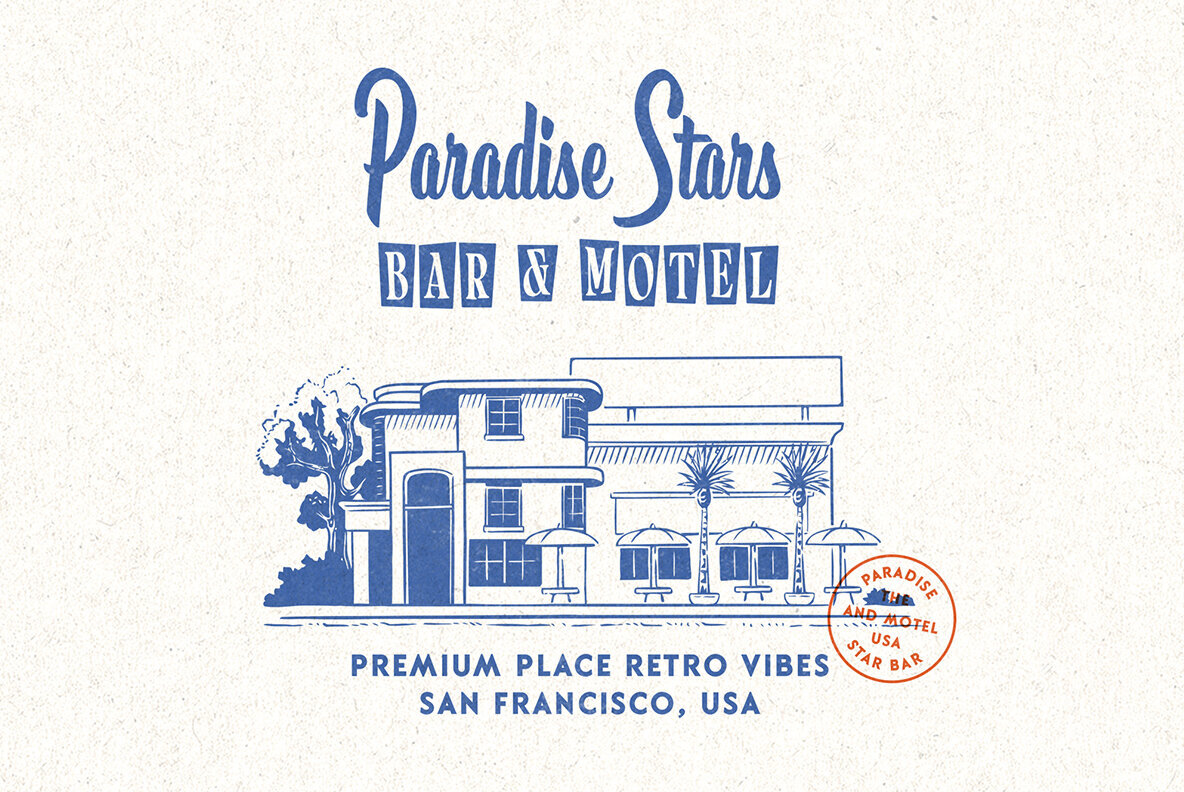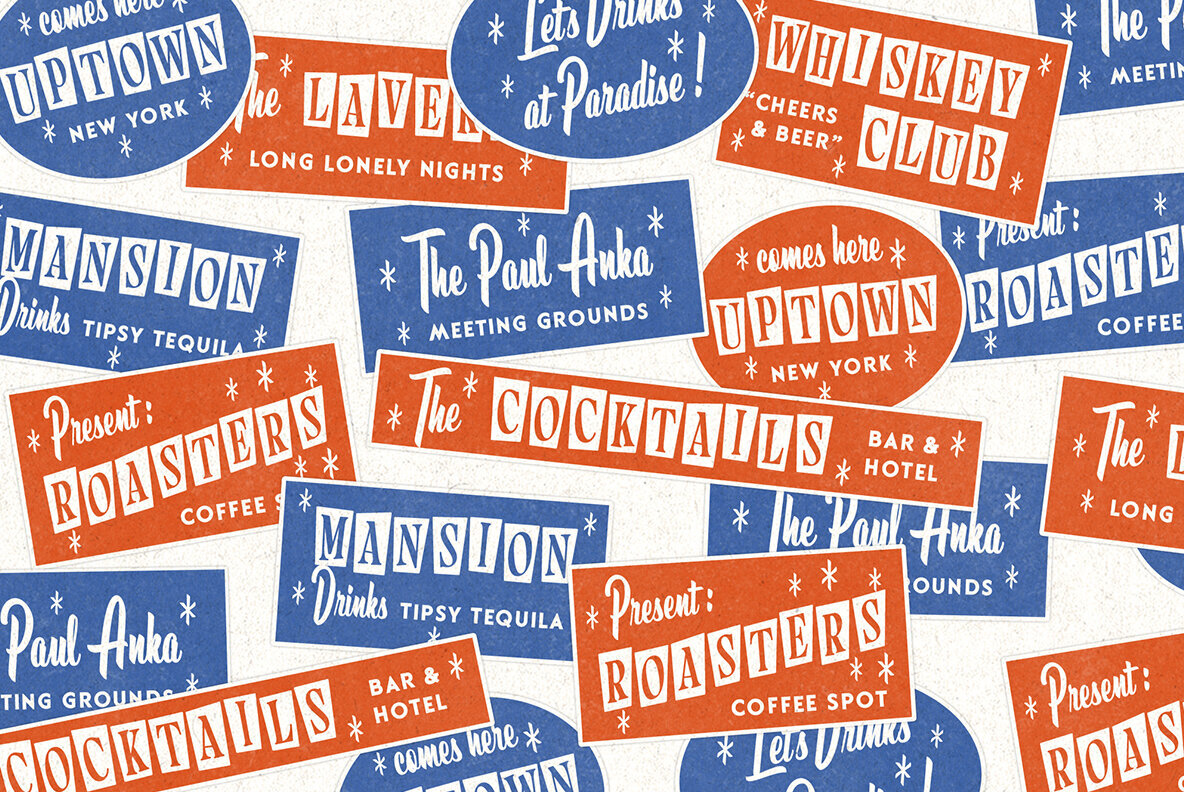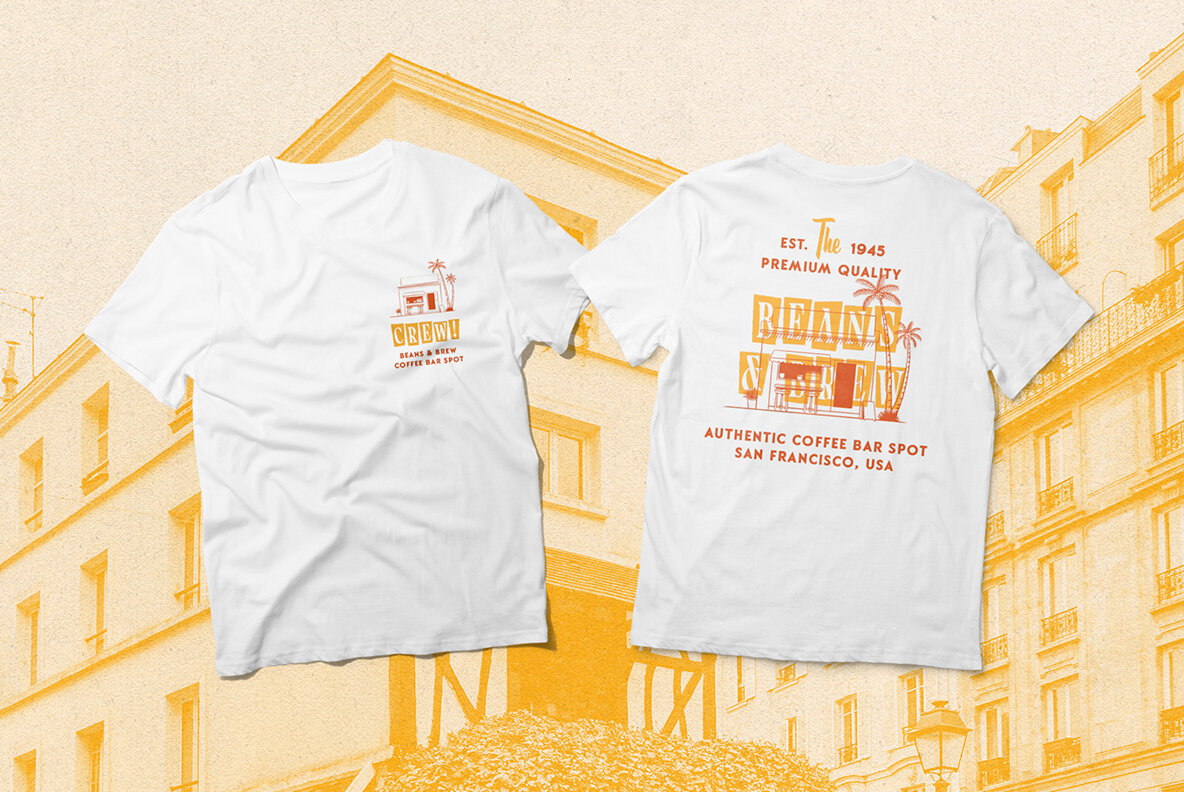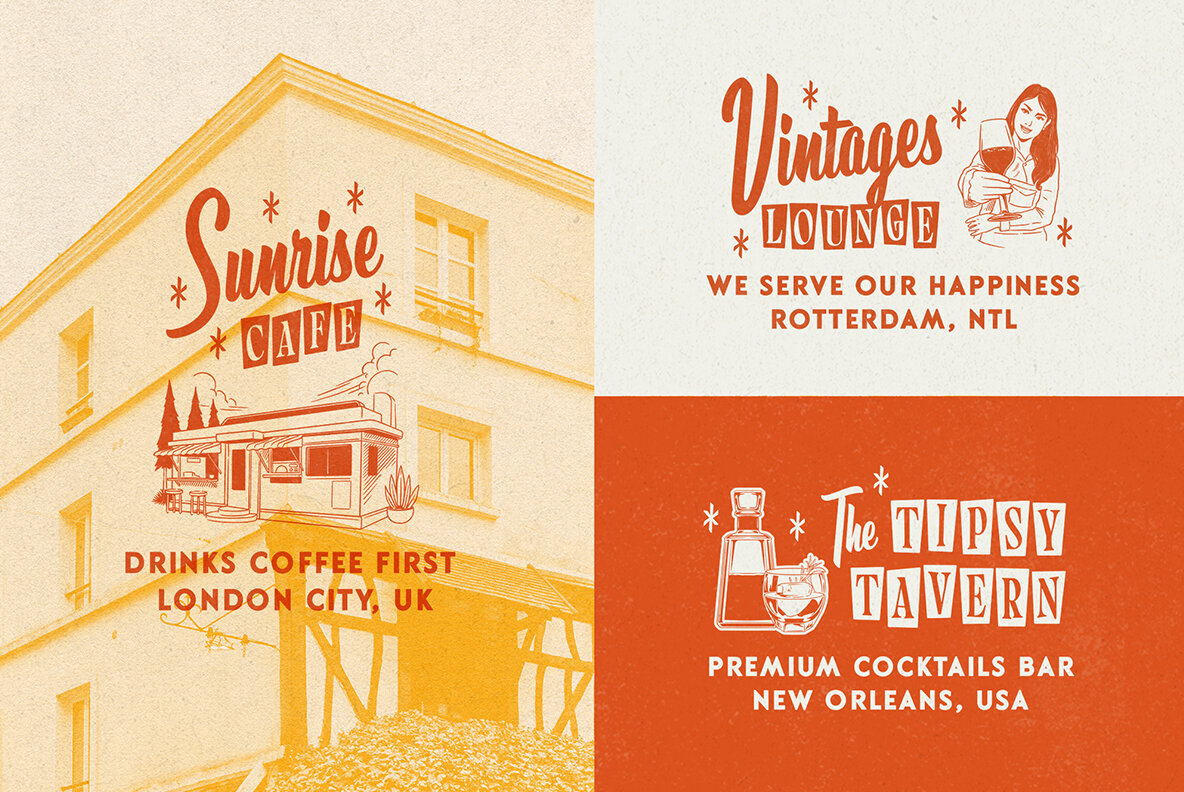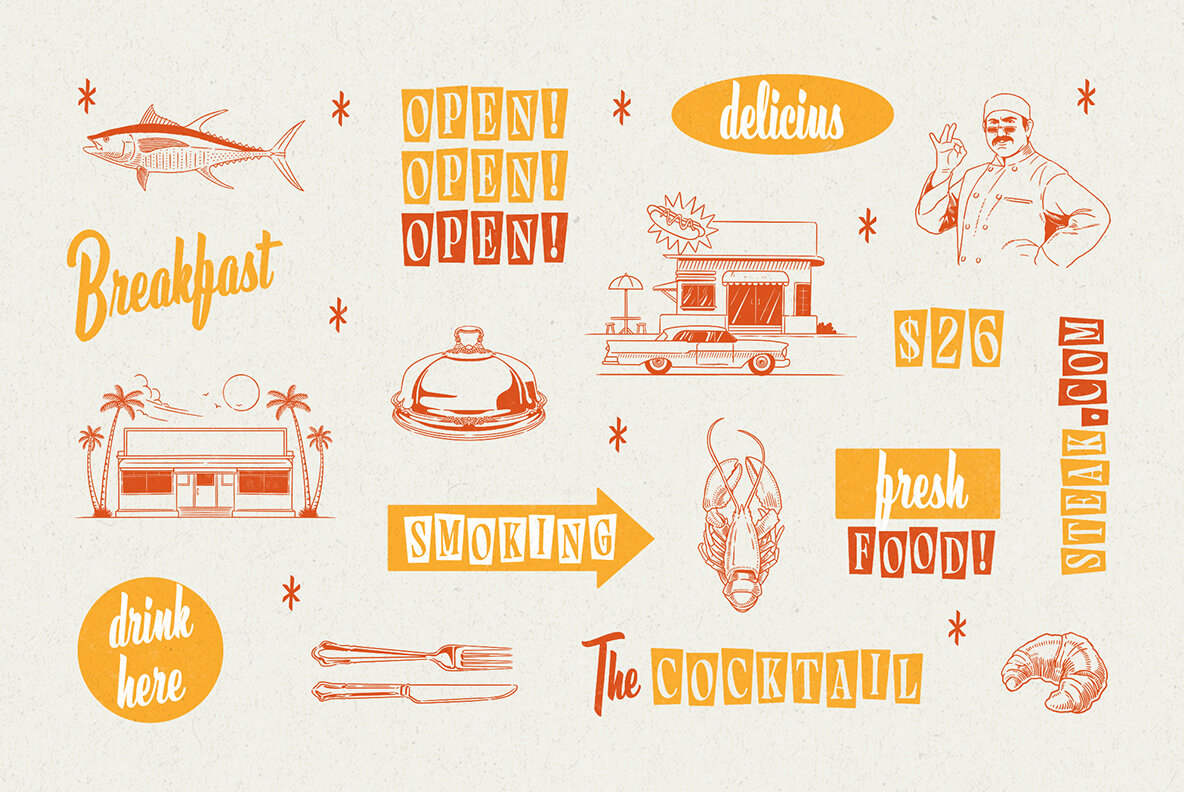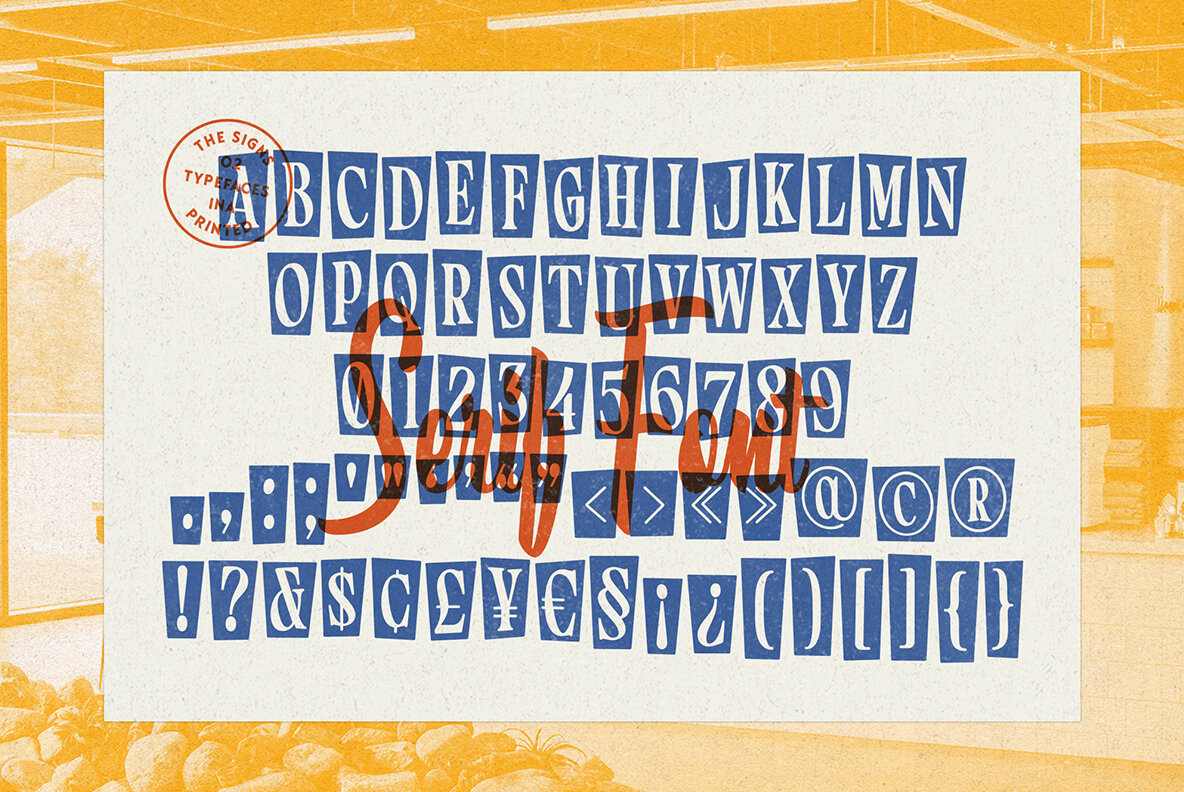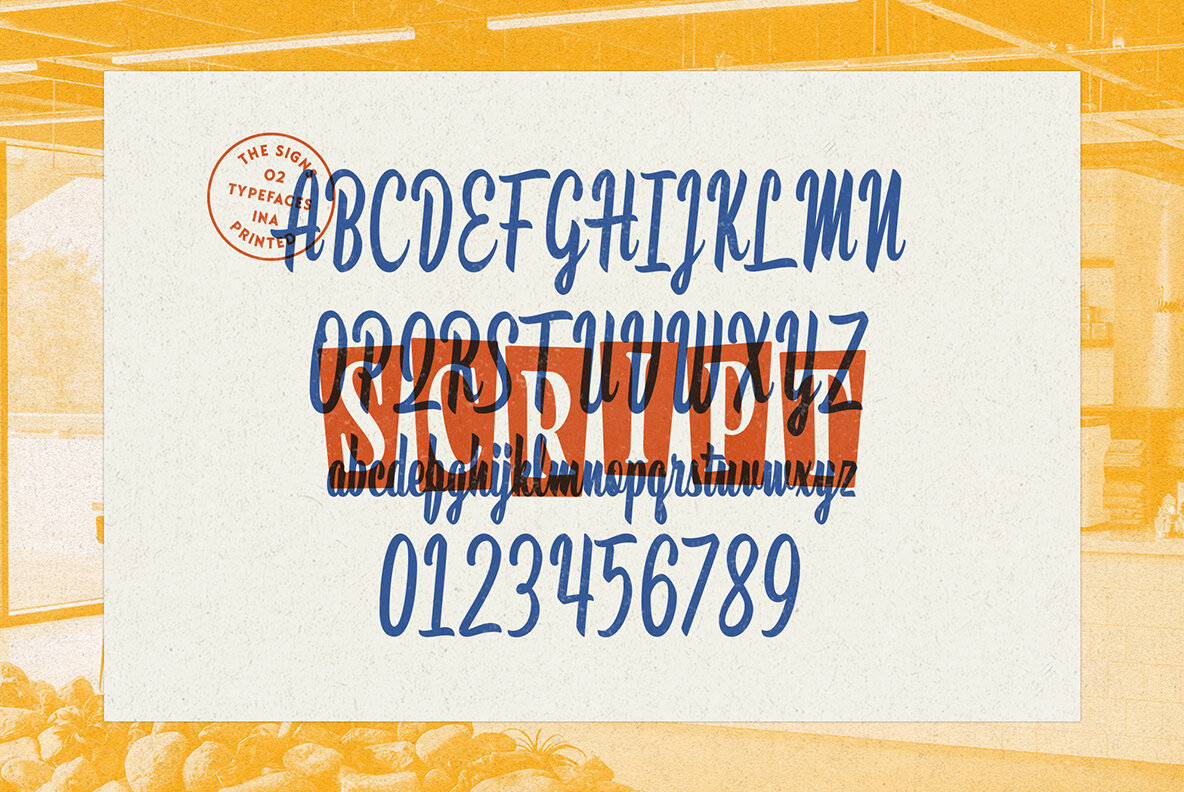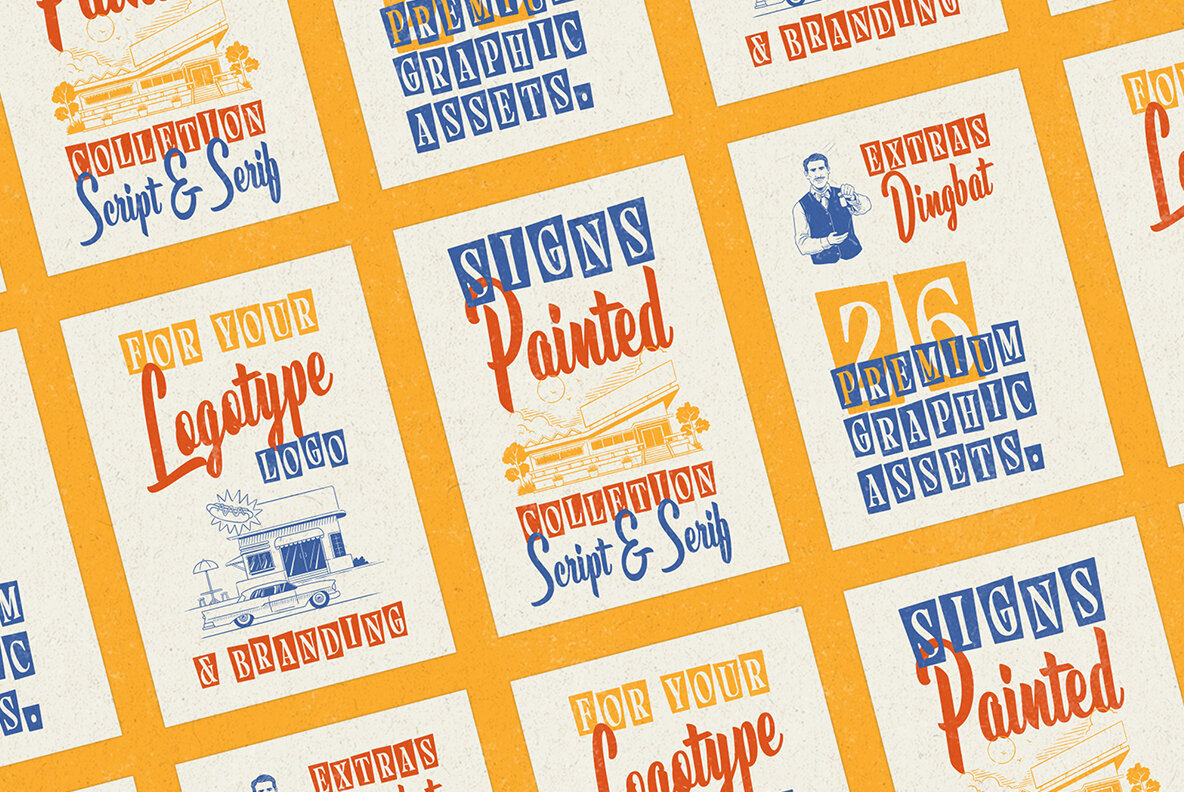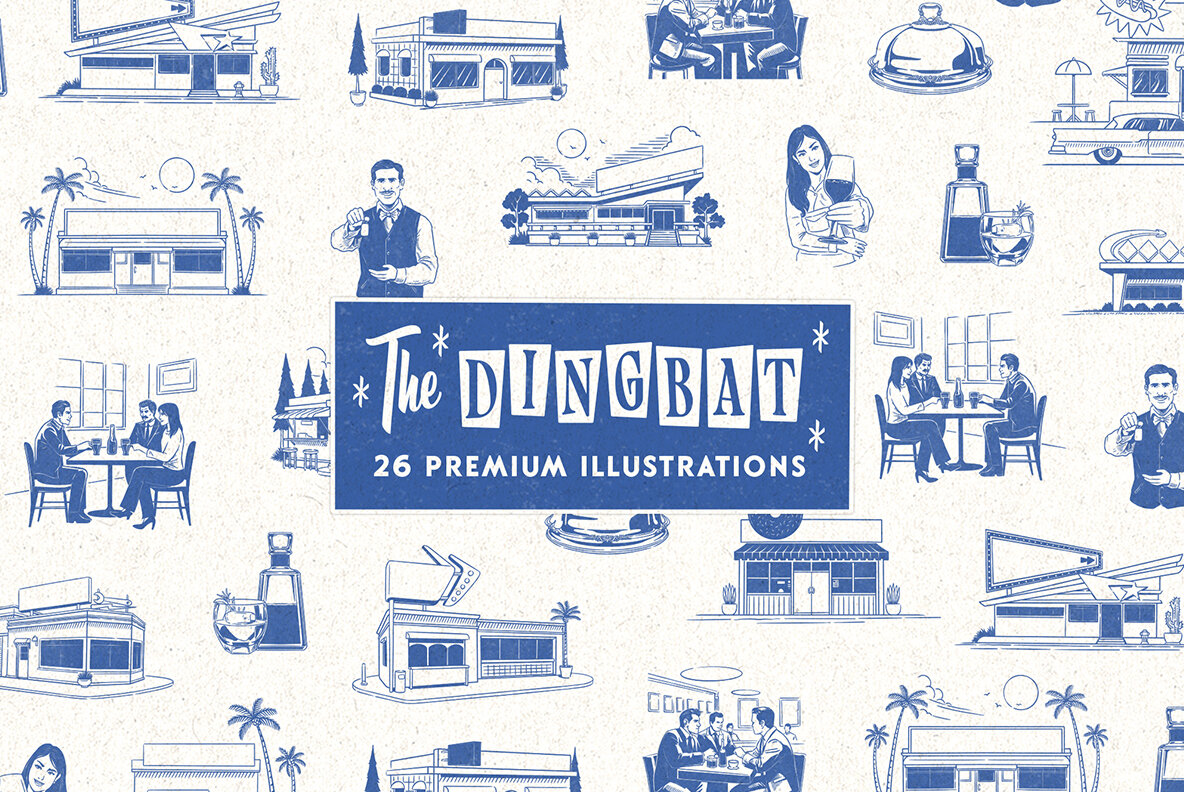
Signs Painted Font
Signs Painted Dingbat
Signs Painted Script
Signs Painted Serif
Embrace the timeless charm of "Signs Painted," a delightful pairing of script and serif fonts that exude a vintage allure. Perfect for logo design, posters, and branding, this font collection seamlessly blends classic elegance with modern flair. Each character is meticulously handcrafted, giving your creations a nostalgic touch that transports audiences to a bygone era. Enhancing its appeal, "Signs Painted" includes 26 illustrations inspired by the enchanting themes of restaurants and hotels, completing the vintage experience. Elevate your designs with a touch of the past, courtesy of "Signs Painted" – where the beauty of vintage meets contemporary creativity.
Signs Painted font features :
- Uppercase, lowercase, numeral, symbol, punctuation, ligature and alternate in script font
- All-caps, numeral, symbol and punctuation in serif font